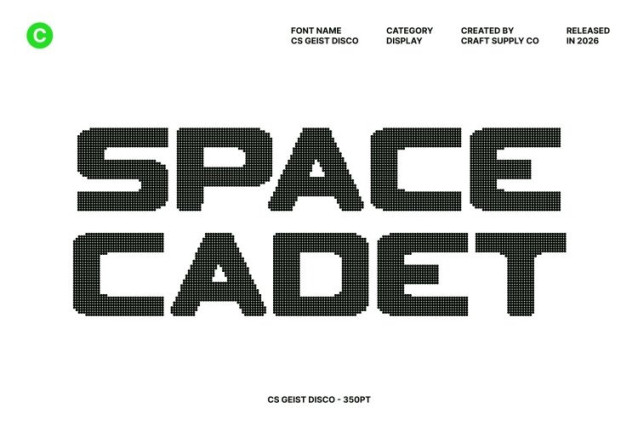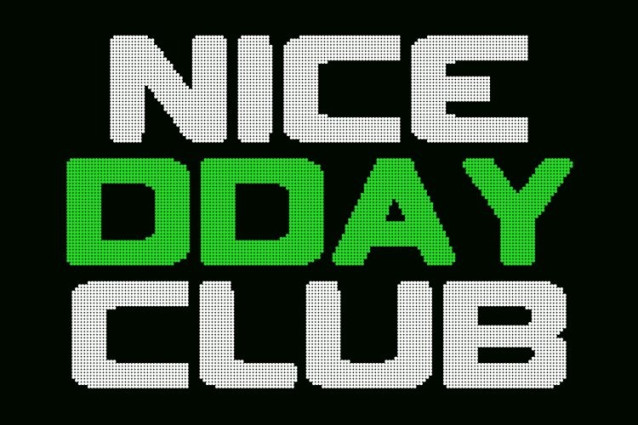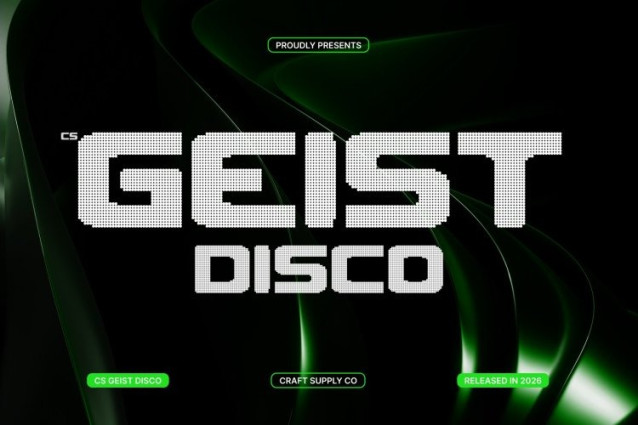
CS Geist Disco Font This is a techno-inspired sans serif font reimagined for the glittering energy of the disco era. Its bold, confident shapes dazzle with a sense of glamour and flair, perfect for making your text shine in any high-impact design. Ideal for branding, posters, and headlines that need to capture attention with style and charisma.
Festive, Energetic, and Forward-Looking
Inspired by the pulse of the dance floor and the shimmer of disco lights, this font radiates energy, movement, and modern sophistication. Its sharp yet sleek forms convey a sense of speed and contemporary style while keeping a playful, celebratory spirit. Every letter sparkles with vitality, making your designs pop with excitement.
Versatile for Creative Display Applications
Perfect for eye-catching headlines, editorial projects, or promotional materials, this font blends clarity with show-stopping presence. Its techno-meets-disco aesthetic works seamlessly across digital and print media, delivering a modern, glamorous, and energetic visual statement.
Ideal for Bold and Festive Projects
Whether designing for futuristic campaigns, party posters, or brand identities that crave personality and flair, this font ensures every project communicates celebration, innovation, and irresistible energy.